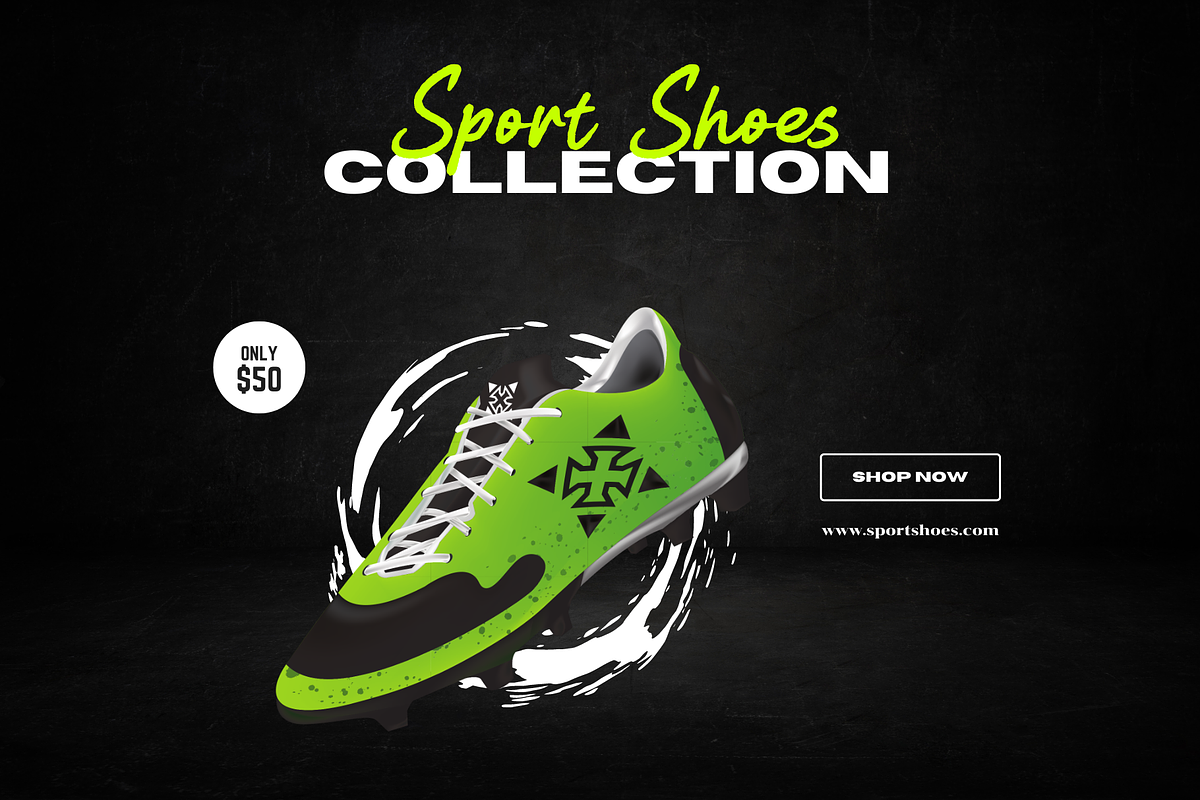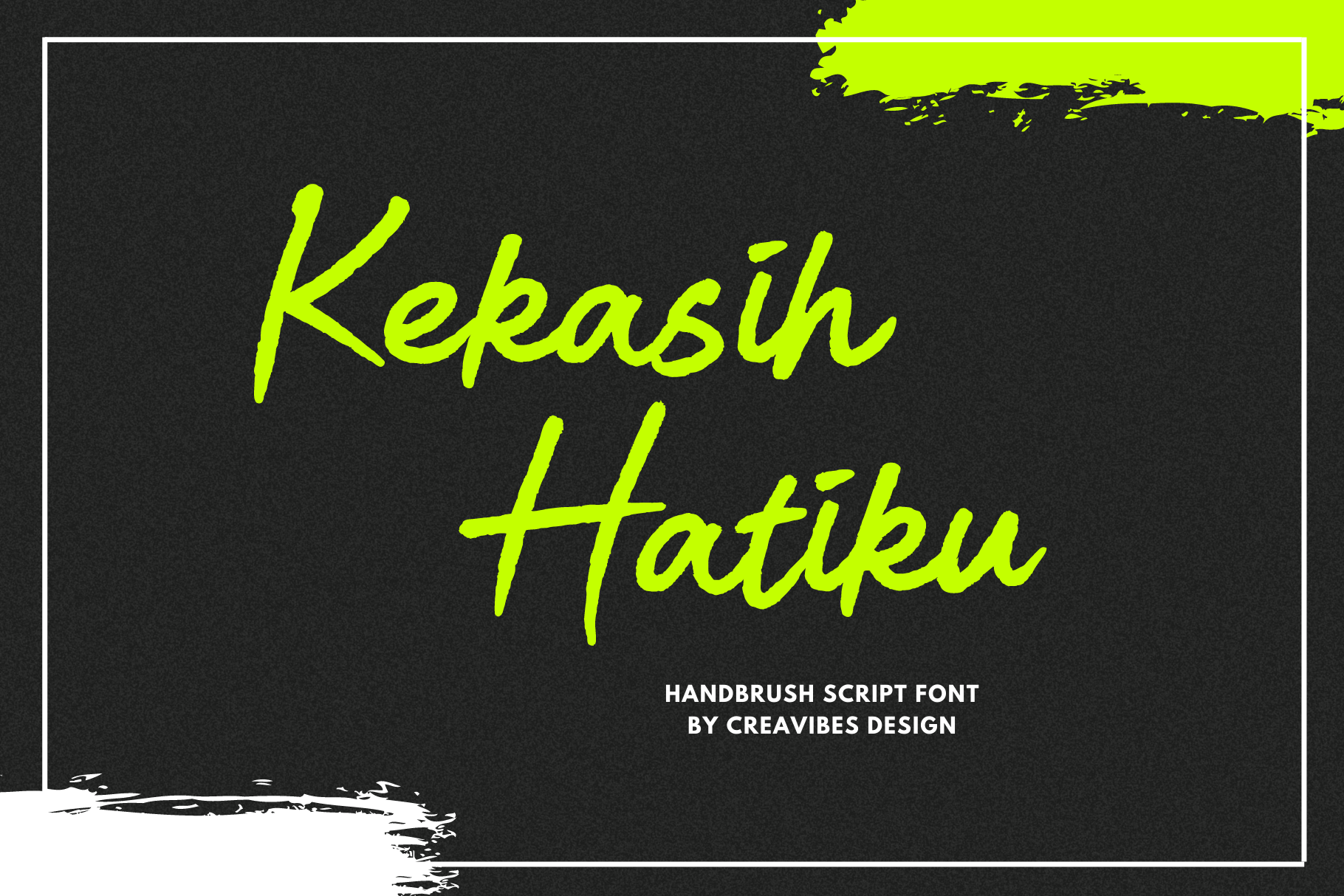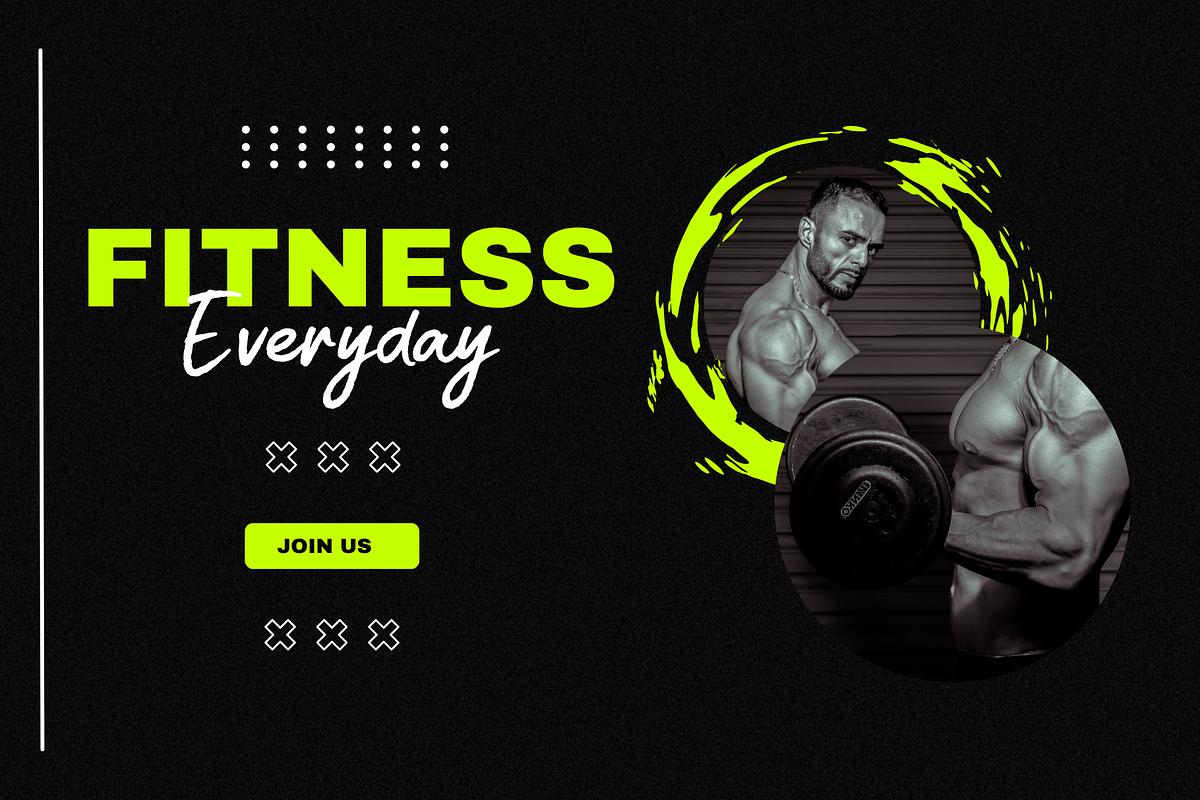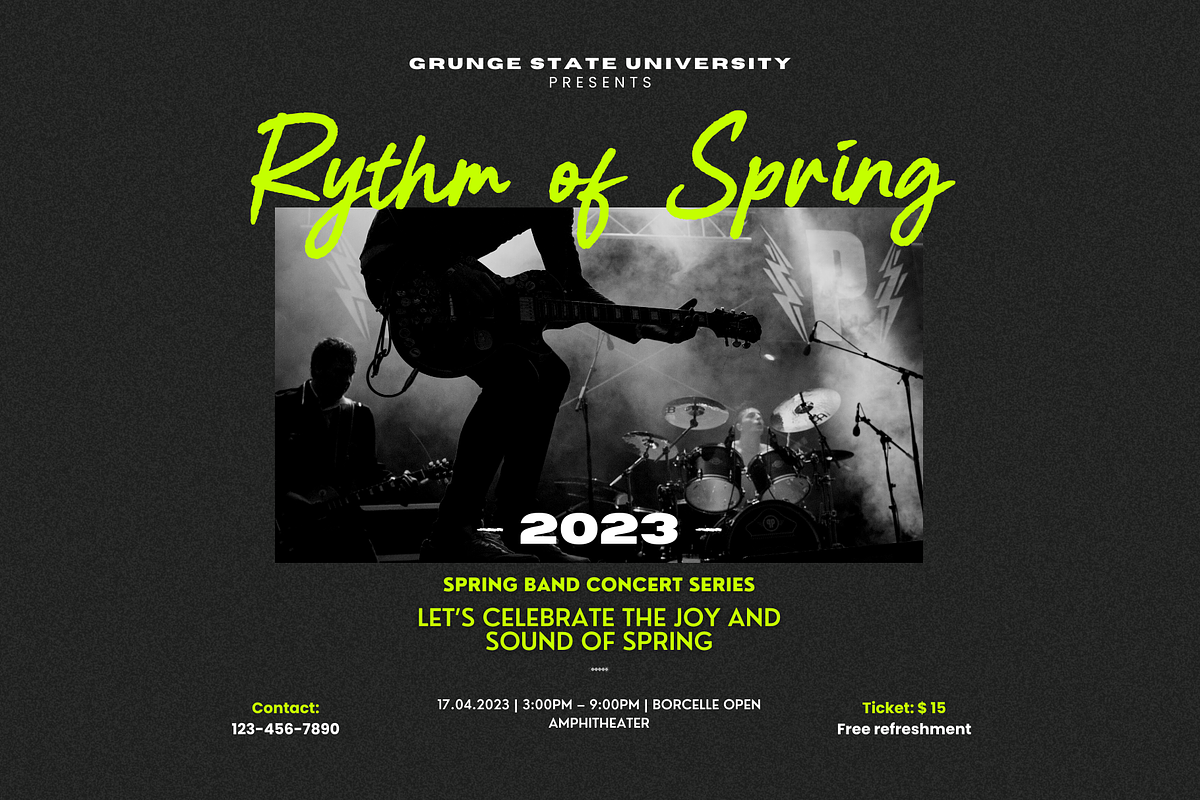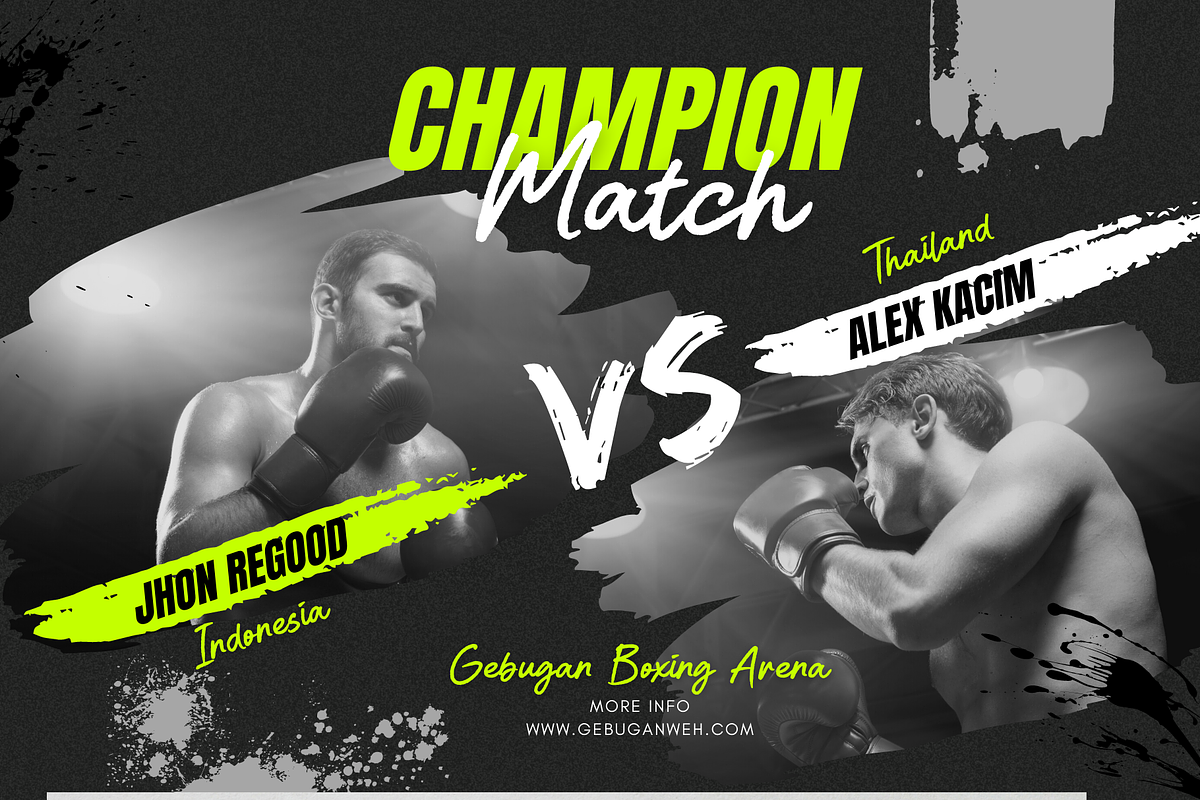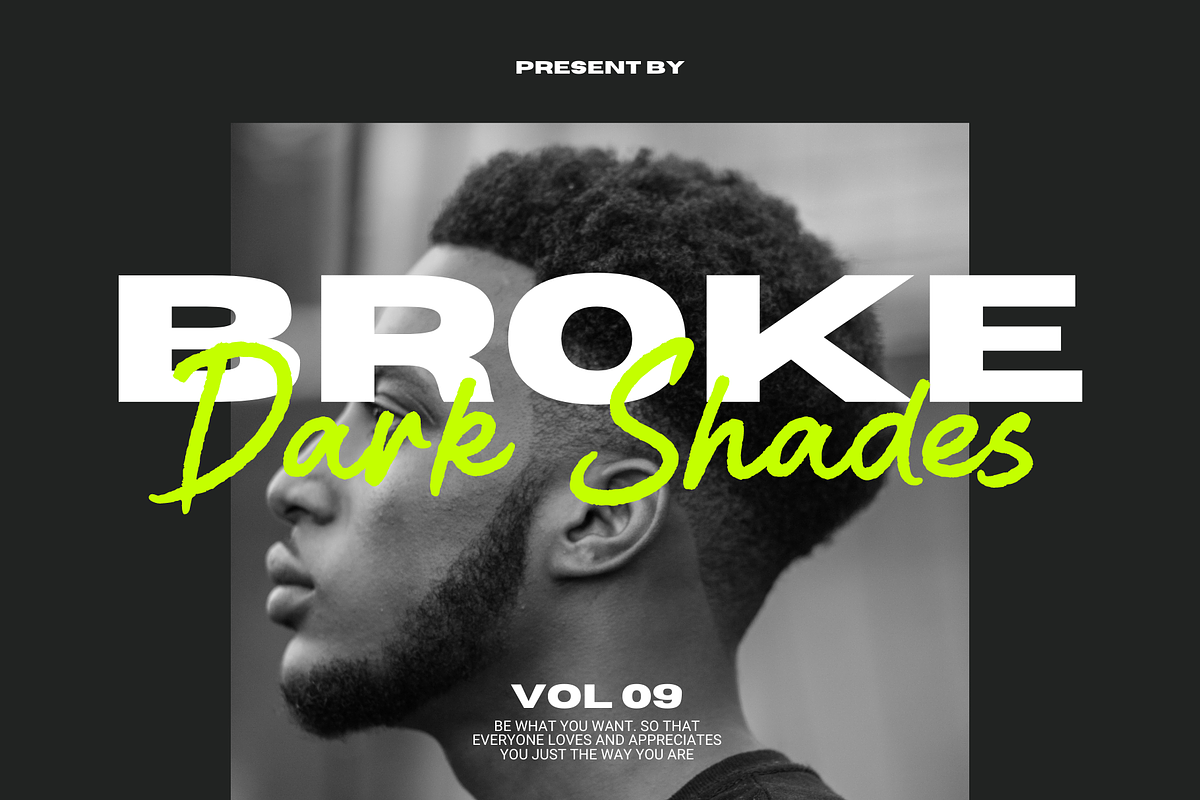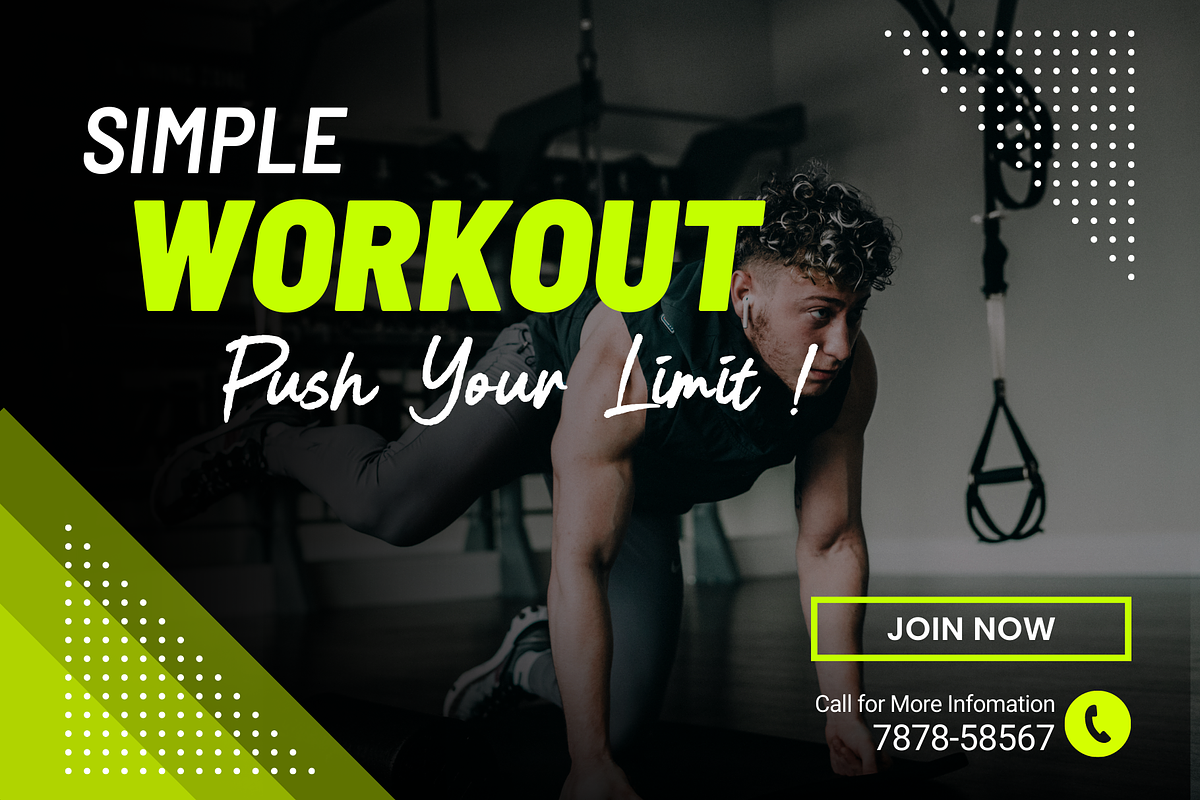
Kekasih Hatiku - Brush Script Font
Kekasih Hatiku - Brush Script Font, this font is perfect for branding, invitation, stationery, wedding designs, social media posts, advertisements, product packaging, product designs, label, photography, watermark, special events, and more.
- Uppercase and lowercase letters
- Multilingual, numerals, and punctuation